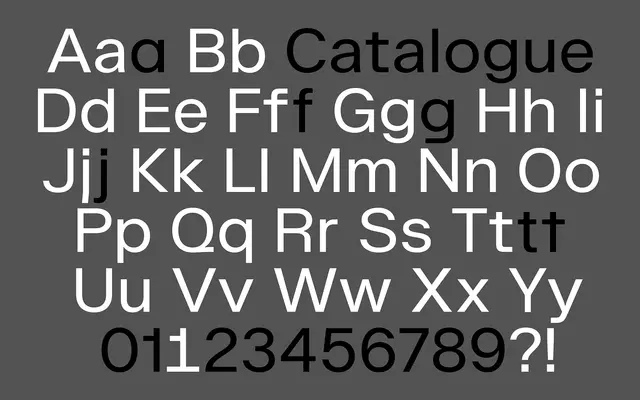
A geometric sans with an extensive set of linear and geometric stylistic alternates, spanning seven weights with italics for use across body text and logotype work.
Originally released as Catalogue, Arkive covers seven weights from Thin to Bold, each with a matching italic, across a full Latin Extended character set. Its defining feature is a rich collection of geometric and linear alternates that allow the tone to shift from restrained to expressive without changing typeface. Ligatures, lining tabular figures and cryptocurrency symbol support round out a practical feature set.
The typeface features geometric and linear stylistic alternates as a core design characteristic, placing it firmly in the geometric sans-serif tradition, with a clean construction suited to both text and display use.